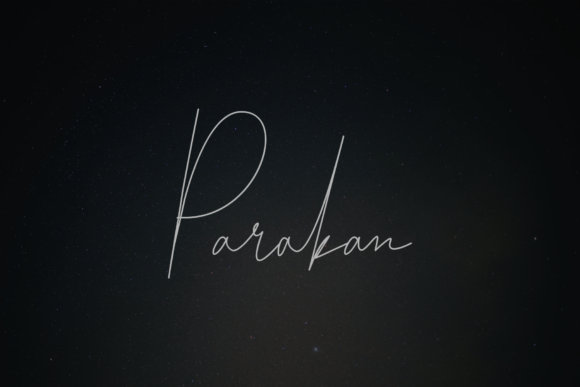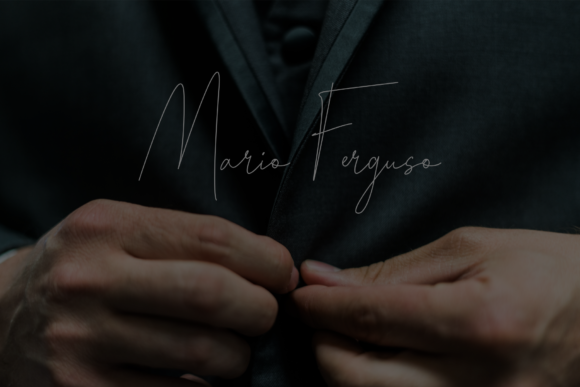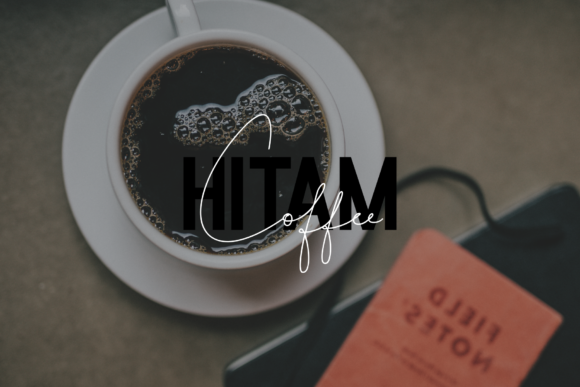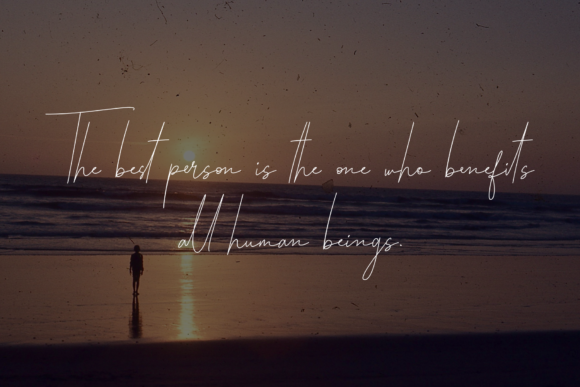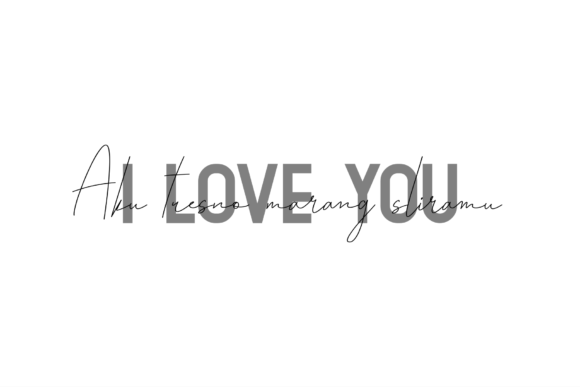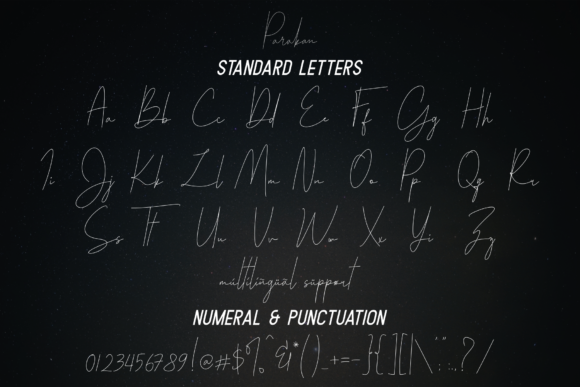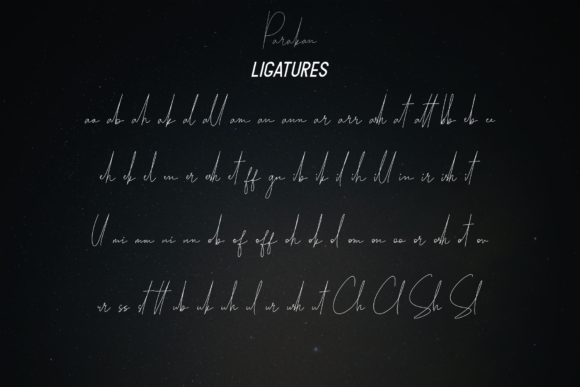
Parakan Script Font
About Parakan Script Font
The Parakan is a fresh and modern signature font. It’s handmade and will give your design an authentic and luxurious feel.